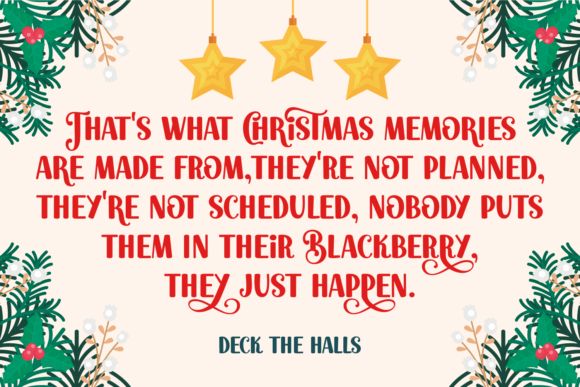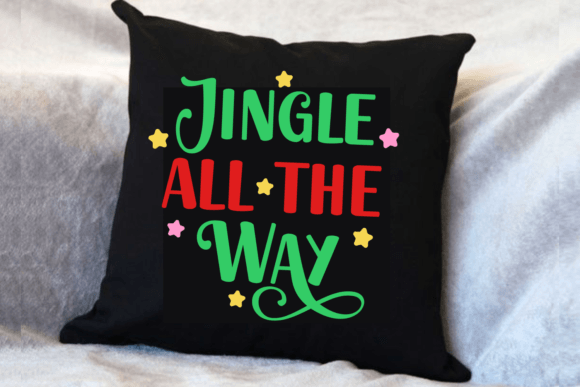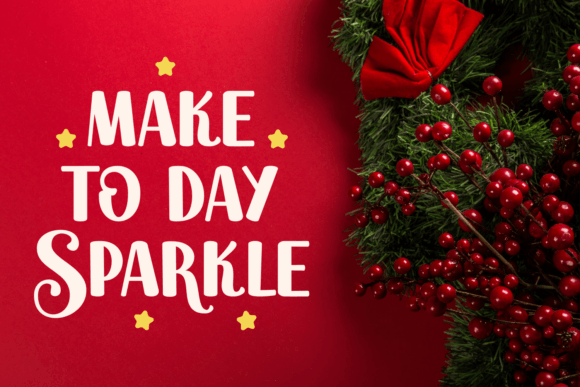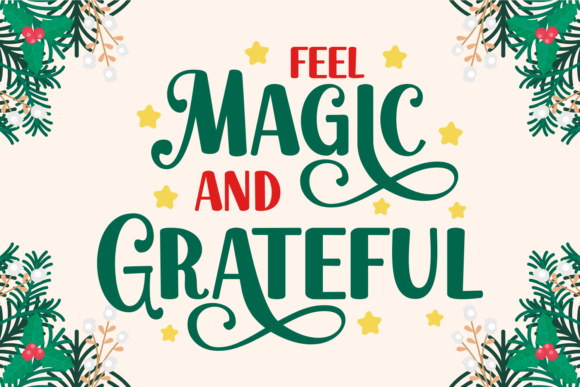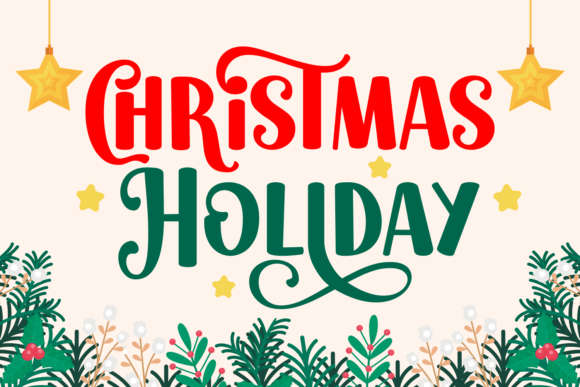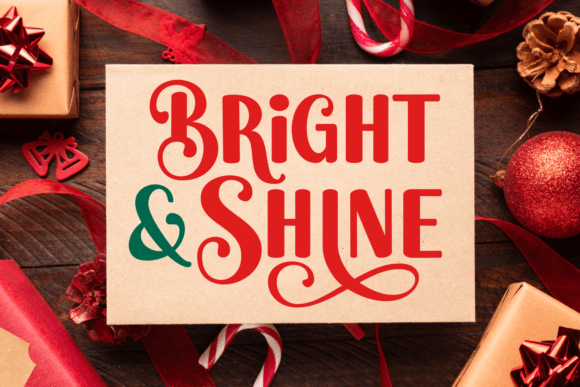
Christmas Beautiful Font: Add a Touch of Holiday Magic to Your Designs
As the holiday season approaches, designers and crafters are on the lookout for the perfect typography to add a touch of festive flair to their Christmas cards, decorations, and more. Look no further than the Christmas Beautiful Font, a festive and playful typeface that’s sure to spread joy and cheer.
A Festive and Playful Typeface
Christmas Beautiful Font is a stunning typeface that’s specifically designed to capture the magic of the holiday season. With its enchanting swashes and whimsical design, this font is perfect for adding a touch of festive fun to any design project. Whether you’re creating Christmas cards, holiday decorations, or festive social media graphics, this font is sure to impress.
- Swashes and flourishes to add a touch of elegance
- Ligatures to create beautiful, flowing text
- Glyphs to add intricate details and patterns
Christmas Beautiful Font is a versatile typeface that’s perfect for both designers and crafters. Whether you’re creating professional designs or handmade crafts, this font is sure to add a touch of holiday magic to your projects. Here are just a few ways you can use Christmas Beautiful Font:
- Create stunning Christmas cards and invitations
- Design festive holiday decorations, such as garlands and signs
- Add a touch of whimsy to your social media graphics and posts
- Use in handmade crafts, such as scrapbooking and journaling
Why Choose Christmas Beautiful Font?
With so many fonts to choose from, why should you choose Christmas Beautiful Font? Here are just a few reasons:
- Unique and eye-catching design that’s sure to stand out
- Perfect for a wide range of design projects, from professional to handmade
- Festive and playful vibe that’s sure to spread holiday cheer
Get Ready to Spread Holiday Cheer
Christmas Beautiful Font is a must-have for any designer or crafter looking to add a touch of festive flair to their holiday designs. With its enchanting swashes, whimsical design, and PUA encoding, this font is perfect for creating stunning Christmas cards, decorations, and more. So why wait? Download Christmas Beautiful Font today and start spreading holiday cheer!